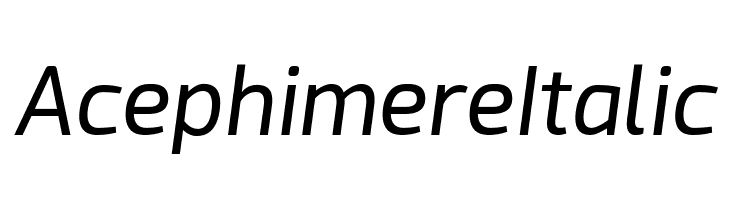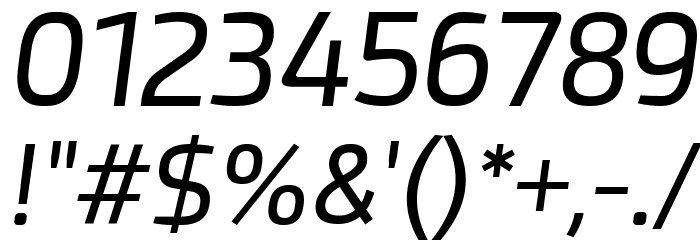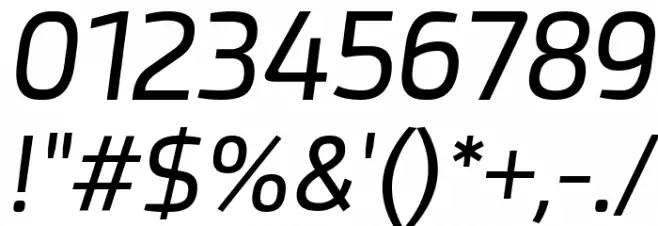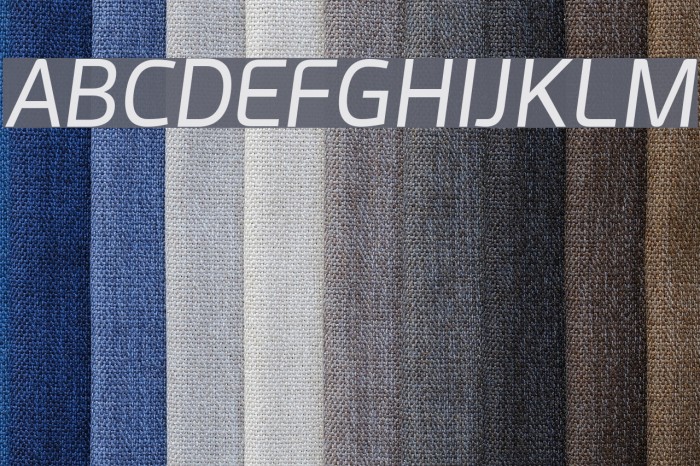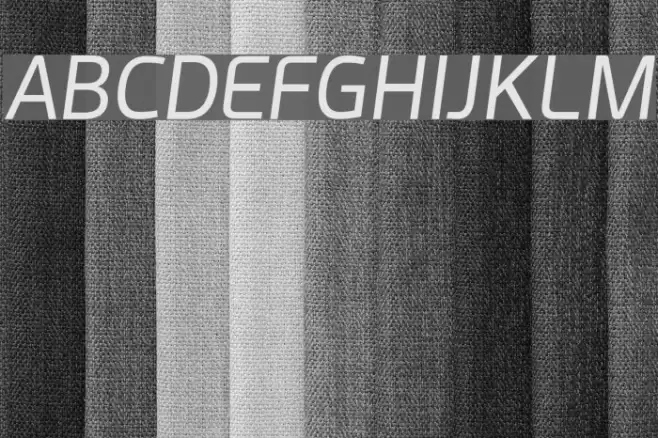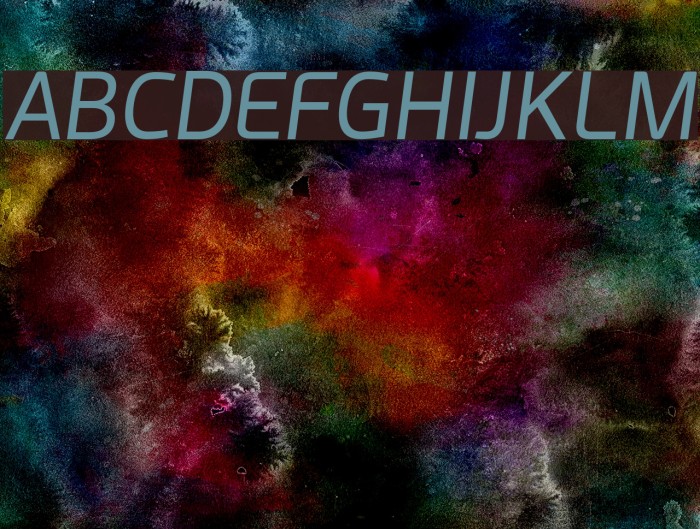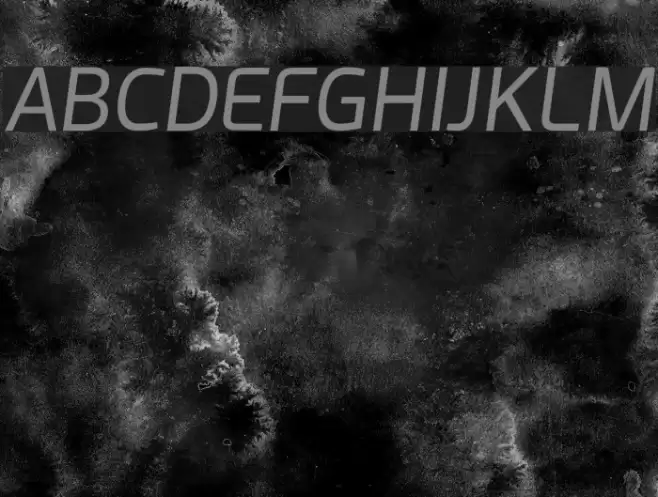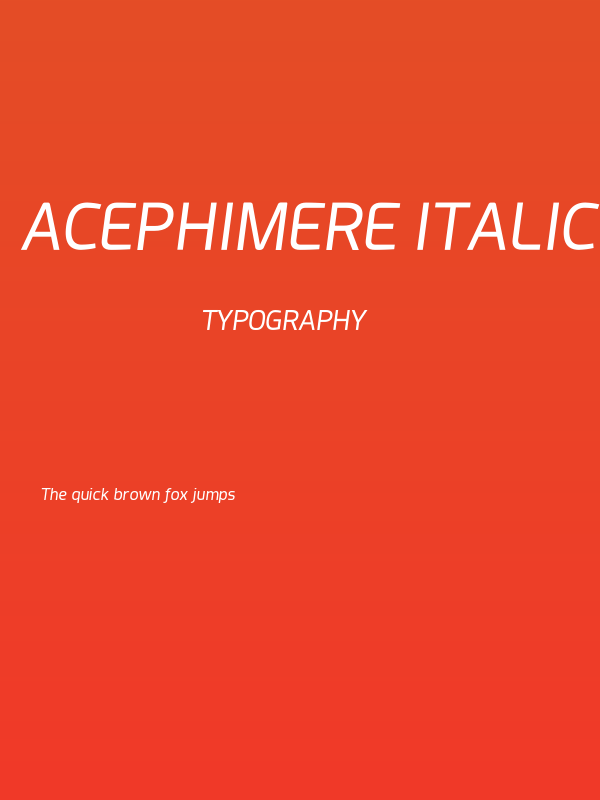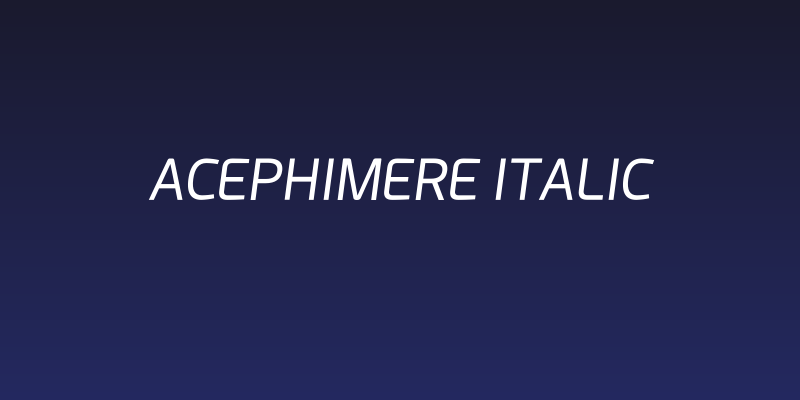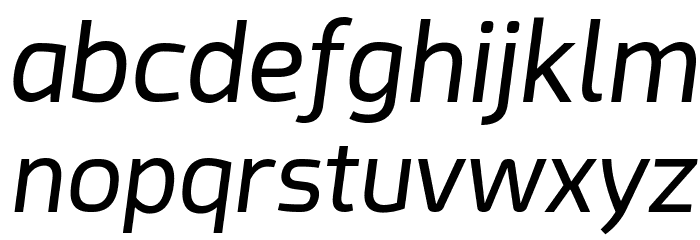
Acephimere Italic Font
Acephimere Italic Description
This font features a sleek and modern sans-serif style with a distinct italic slant, giving it a dynamic and forward-moving appearance. The characters are clean and well-defined, with a uniform stroke width that maintains a consistent look across both uppercase and lowercase letters. The numerals are clear and easy to read, making them suitable for various applications. Special characters are included, maintaining the same stylistic approach, ensuring versatility in design projects. The overall aesthetic is contemporary and professional, making it ideal for use in digital and print media.
| Proposed Projects | Ideal for branding, advertising, web design, and editorial layouts where a modern and professional look is desired. |